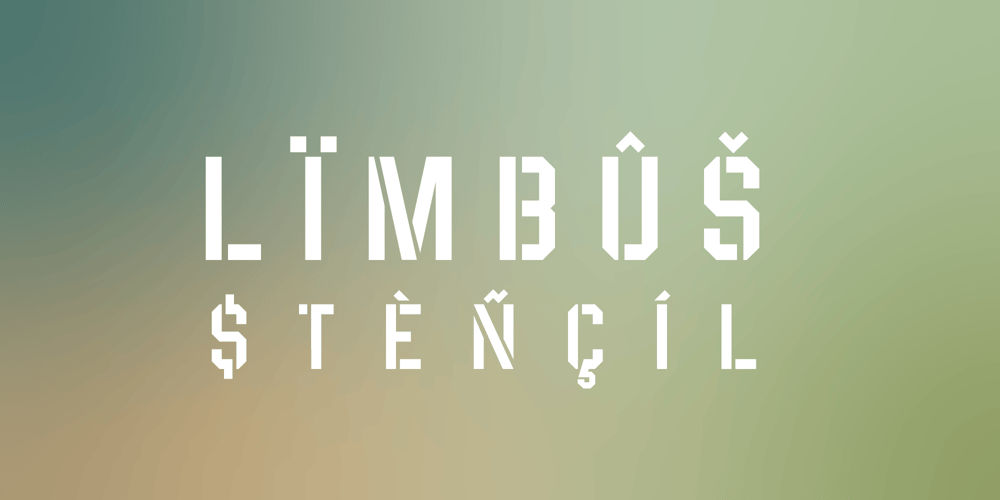
Limbus Sans Font Family was designed by Lukas Gerber and published by Luker Type. Limbus Sans contains 1 styles and family package options. Limbus Sans Stencil is the Stencil version of the modern and elegant font family Limbus Sans, created in 2023 by Lukas Gerber of LukerType.